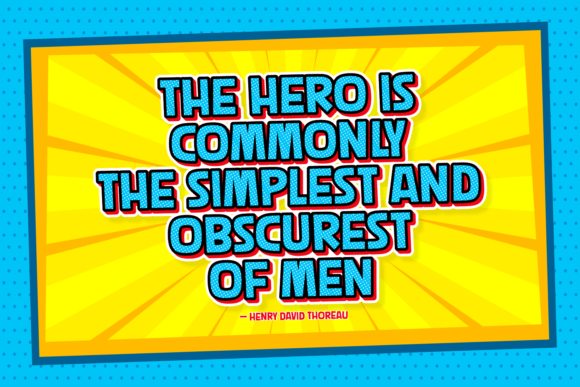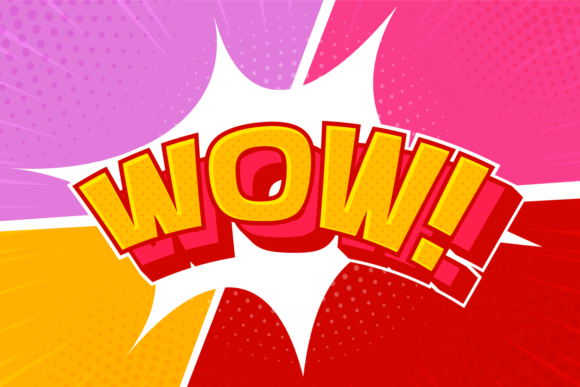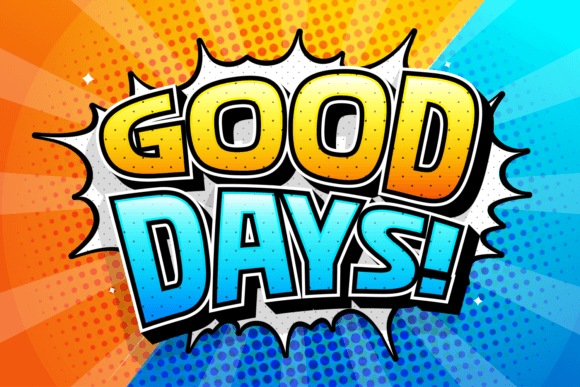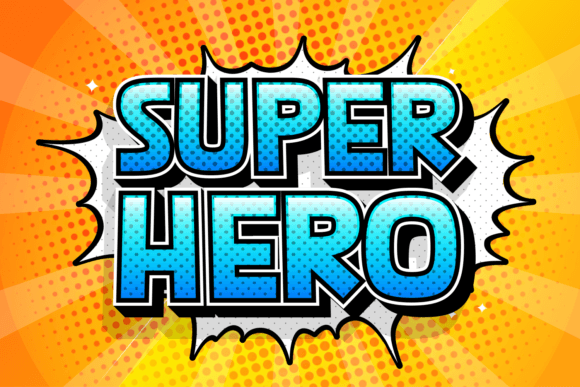
Introduction to Hero Game Font
Hero Game is a bold and versatile display font.
The thick characters and friendly look make this font an incredible asset to your design library Grab it now and use it to give life to posters, book covers, advertising materials, cards, banners, product packaging, headlines, and more.
Key Features of Hero Game Font